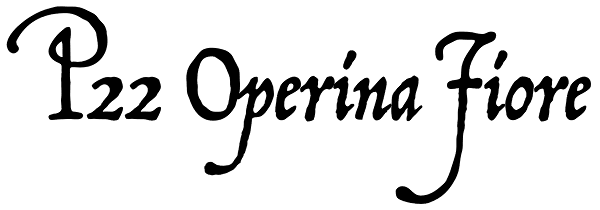
P22 Operina
Operina is based on a 16th-century lettering model of the scribe Ludovico degli Arrighi (Vicentino Ludovico degli Arrighi) used in his 1522 instructional lettering book, "La Operina da Imparare di scrivere littera Cancellarescha." This book contains...